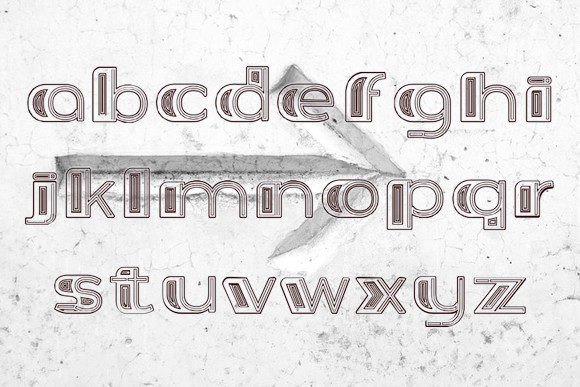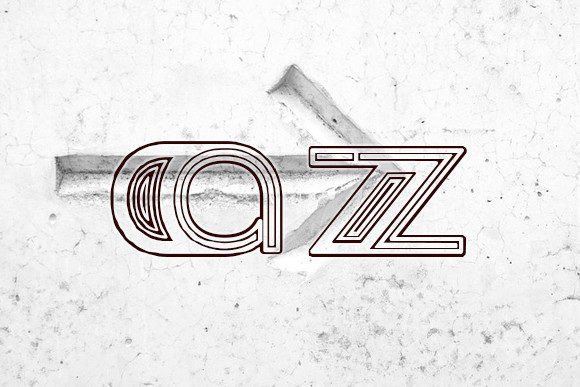
Achiever Font: Elevate Your Designs with this Stunning Decorative Font
Are you a designer or crafter looking for a unique and beautiful font to take your projects to the next level? Look no further than Achiever Font! This gorgeous decorative font is perfect for adding a touch of elegance and sophistication to your designs. In this article, we’ll explore the features and benefits of Achiever Font, and show you how to use it to create stunning posters, flyers, wedding brochures, and more.
What is Achiever Font?
Achiever Font is a decorative font designed to add a touch of luxury and glamour to your designs. Its unique and intricate lettering makes it perfect for creating eye-catching headlines, titles, and text. The font is highly versatile and can be used for a wide range of projects, from posters and flyers to wedding brochures and social media graphics.
Key Features of Achiever Font
- Unique and Intricate Lettering: Achiever Font features beautiful, hand-crafted lettering that adds a touch of elegance to your designs.
- Highly Versatile: The font can be used for a wide range of projects, from posters and flyers to wedding brochures and social media graphics.
- Scalable: The font is highly scalable, making it perfect for use on large and small projects alike.
Benefits of Using Achiever Font
So why choose Achiever Font for your designs? Here are just a few benefits of using this stunning decorative font:
- Adds Elegance and Sophistication: Achiever Font adds a touch of luxury and glamour to your designs, making them stand out from the crowd.
- Increases Readability: The font’s unique lettering makes it easy to read, even at small sizes.
- Perfect for Branding: Achiever Font is perfect for creating eye-catching logos, business cards, and other branding materials.
How to Use Achiever Font
Using Achiever Font is easy! Here are a few tips for getting started:
- Choose the Right Size: Achiever Font is highly scalable, so choose a size that works for your project.
- Experiment with Colors: The font looks great in a wide range of colors, so don’t be afraid to experiment and find the perfect hue for your design.
- Pair with Other Fonts: Achiever Font pairs well with a wide range of other fonts, so try pairing it with a simpler font for added contrast.
Project Ideas for Achiever Font
So what can you create with Achiever Font? Here are a few project ideas to get you started:
- Posters: Use Achiever Font to create eye-catching posters for events, promotions, and more.
- Flyers: Add a touch of elegance to your flyers with Achiever Font.
- Wedding Brochures: Make your wedding brochures stand out with Achiever Font’s beautiful, intricate lettering.
- Social Media Graphics: Use Achiever Font to create eye-catching social media graphics that will help your brand stand out.